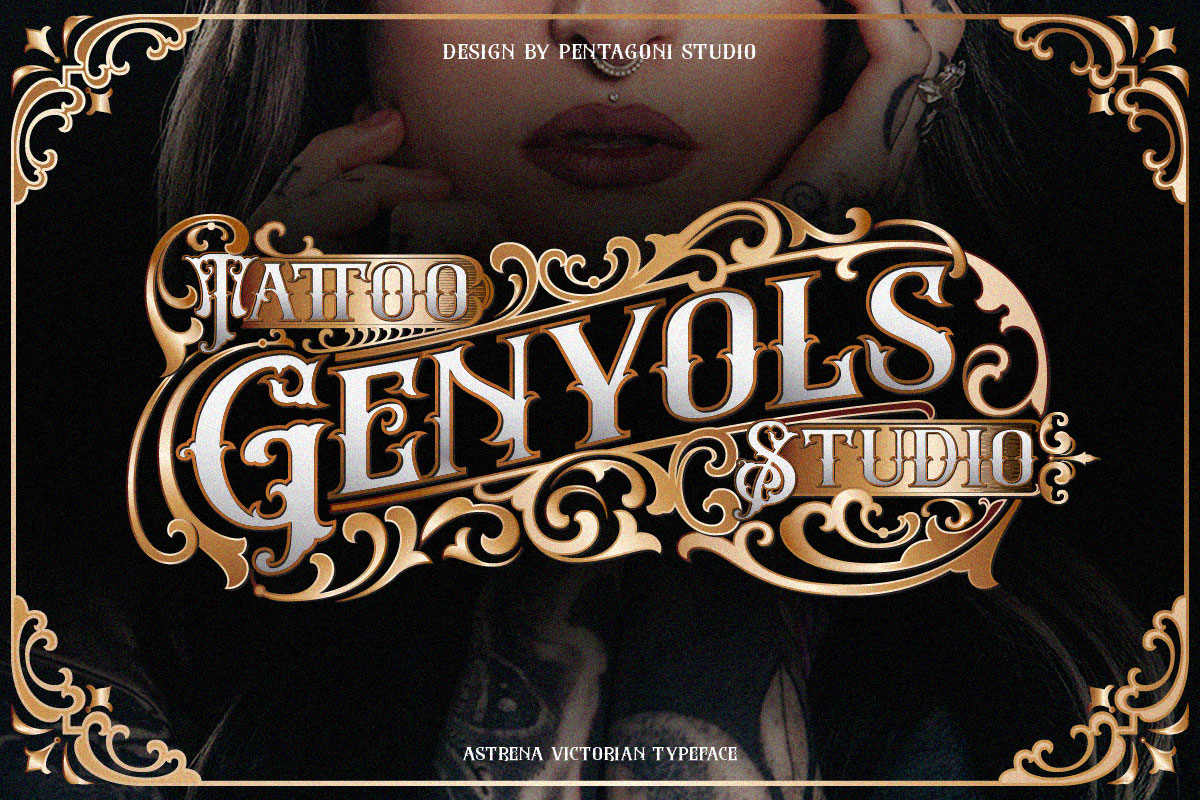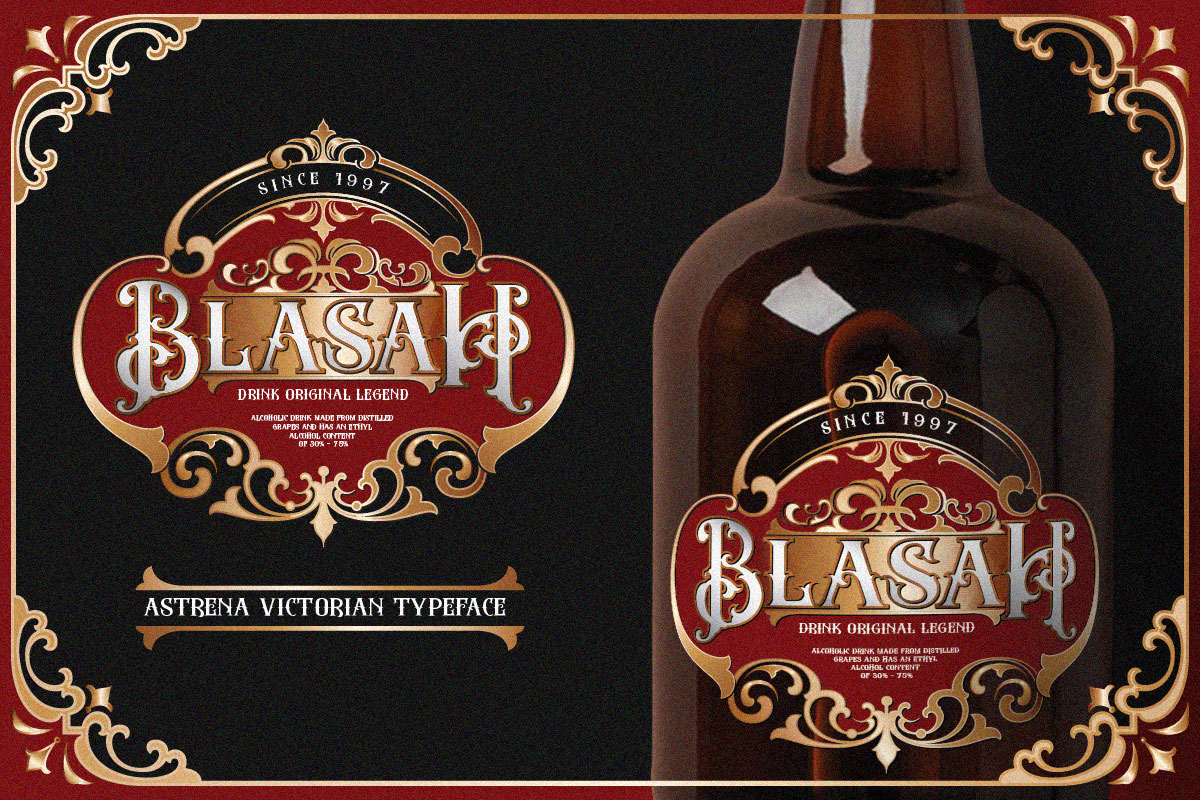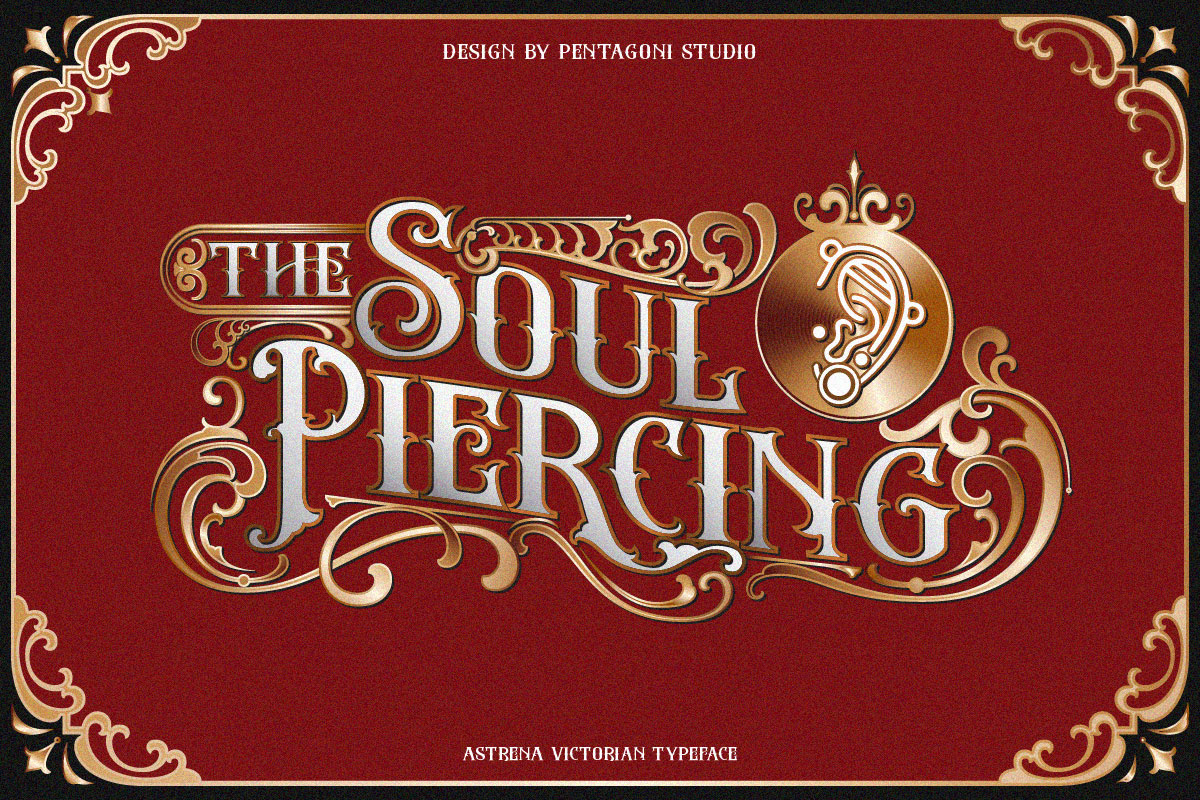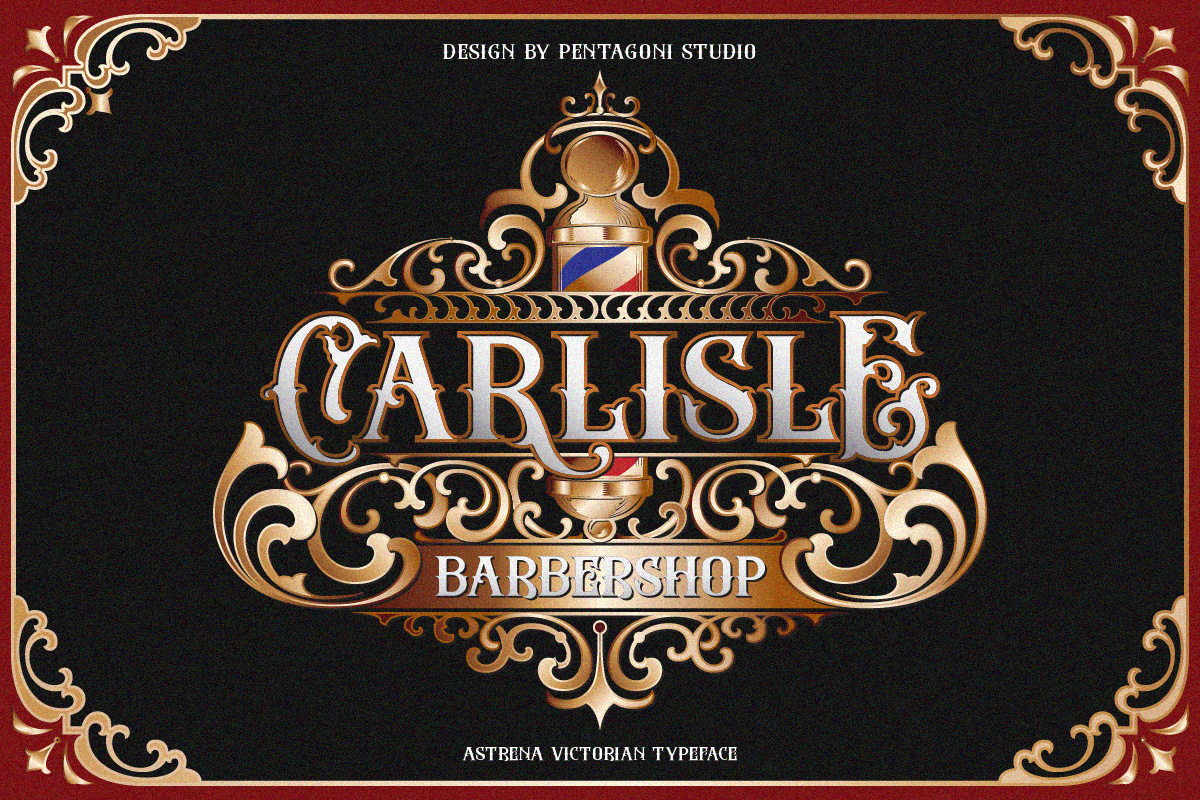
Astrena Font
Astrena Blackletter Font
It’s An Victorian Vintage Display Typeface Inspired By Nostalgic Characters. This font is perfect for branding, logo design, cover design, books, magazines, apparel designs, headlines, etc